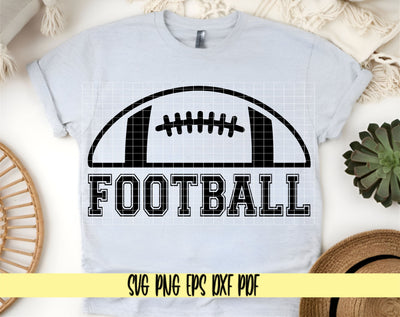
Half Football Varsity Design - Sports Football Design
Show your football pride with this varsity-style Digital design! Perfect for creating custom shirts and apparel
Create amazing football apparel to support your team!